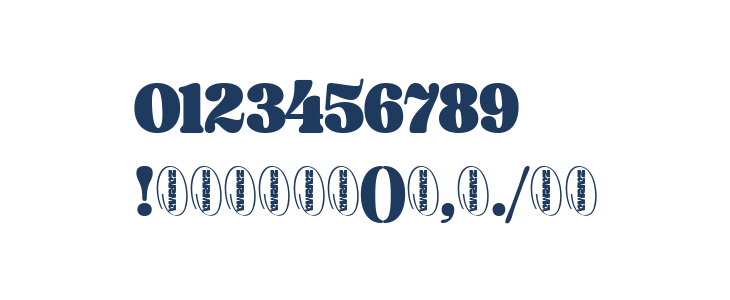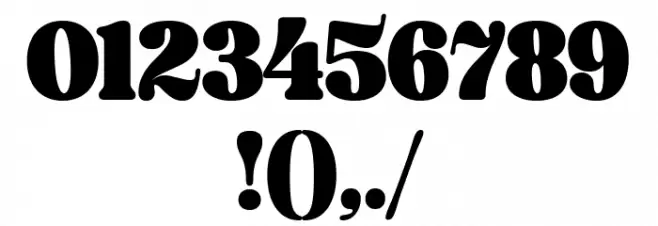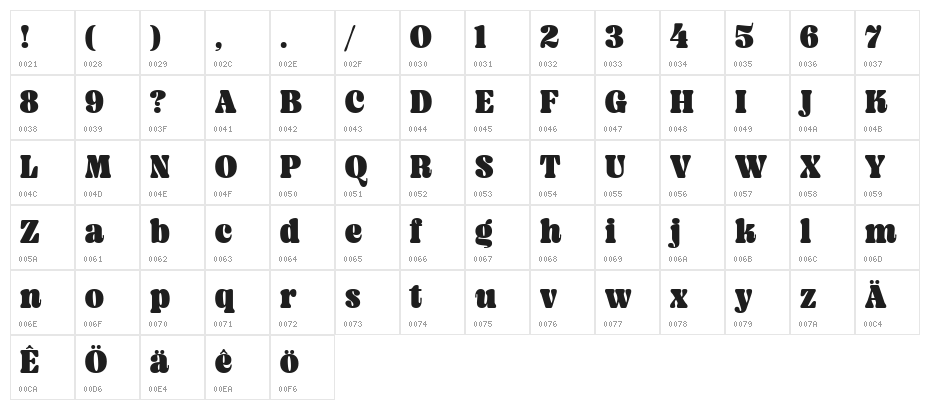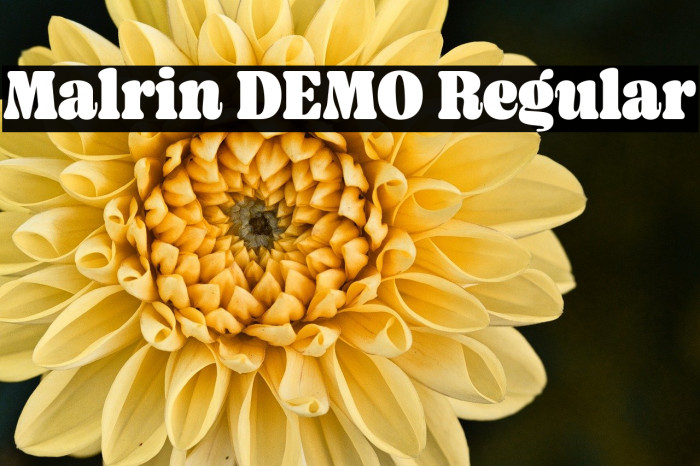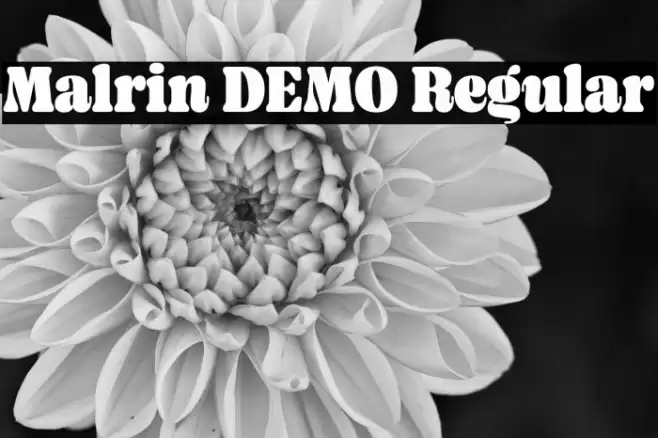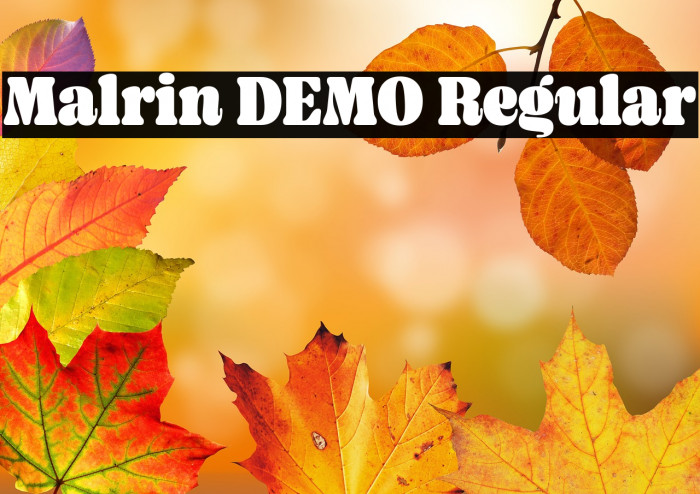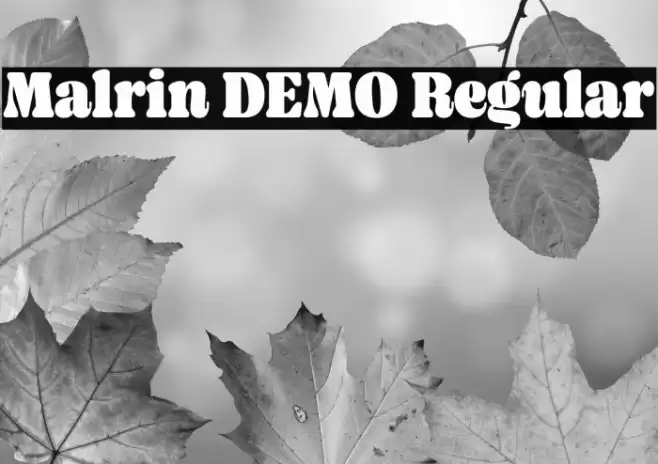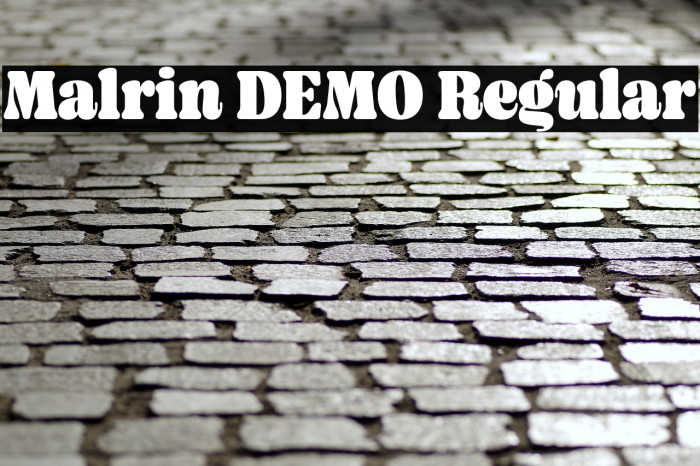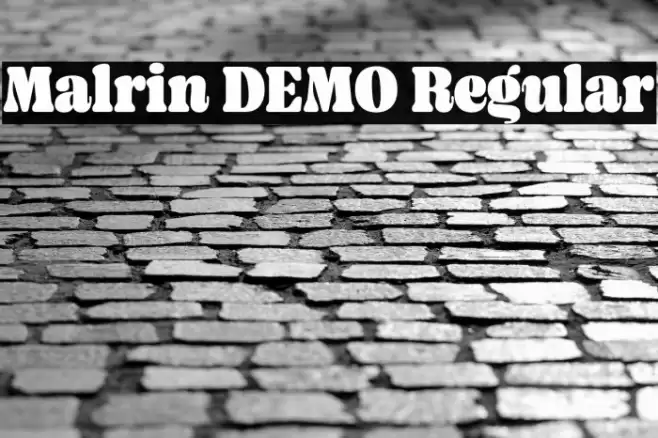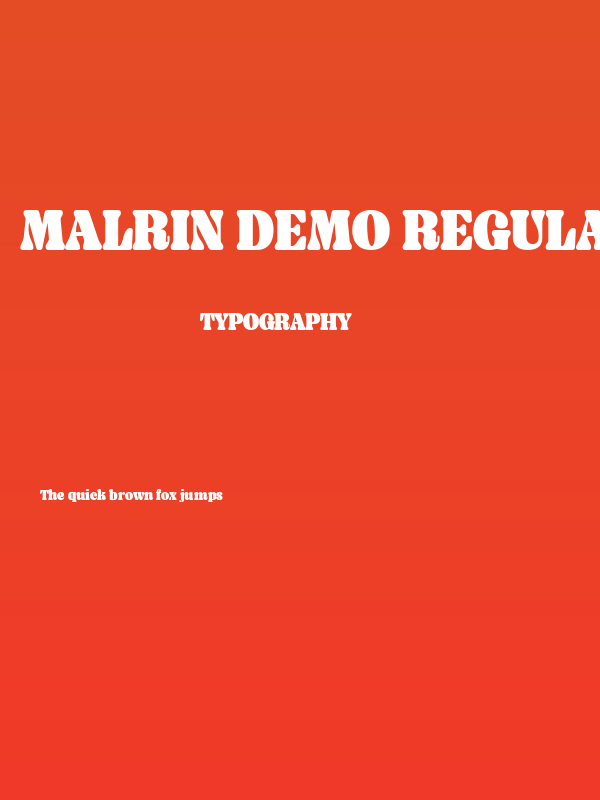
Malrin DEMO Regular Font
Malrin DEMO Regular Description
This font features a bold and dramatic style with thick, heavy strokes that create a strong visual impact. The characters have a unique, playful flair with rounded edges and subtle curves, giving them a distinctive appearance. The uppercase letters are particularly striking, with a robust presence that commands attention. The lowercase letters maintain a consistent weight, ensuring readability while adding a touch of whimsy. Numbers and special characters are equally bold, maintaining the overall aesthetic. This font is ideal for making a statement, with its eye-catching design and bold presence.
| Proposed Projects | Ideal for branding, posters, headlines, and any project requiring a strong visual impact. |